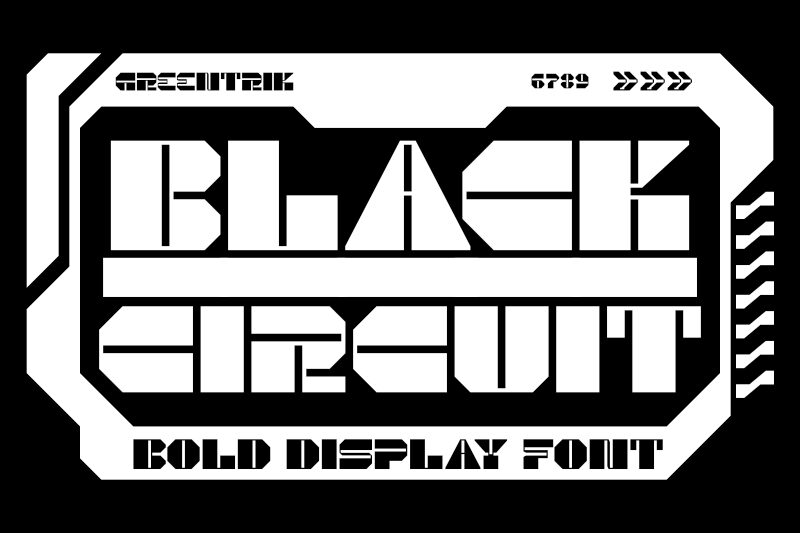
Black Circuit Demo
Behold the captivating allure of Black Circuit, a bold and expressive display font crafted by the ingenious Greentrik6789. This dynamic typeface exudes a distinct techno-inspired aesthetic, with its sharp angles and striking forms evoking a sense of futuristic elegance. The expansive letterforms and robust weight lend this font an undeniable presence, making it an ideal choice for eye-catching headlines, impactful logos, and cutting-edge digital designs.
Versatile and adaptable, Black Circuit's impactful style seamlessly translates across a diverse range of applications. From sleek modern branding to dynamic event posters, this font possesses the power to elevate any project with its bold, technological flair. Its expanded width and bold weight ensure maximum visibility, making it a compelling option for attention-grabbing display pieces, digital interfaces, and beyond.
This font is inspired by electronic circuit board which have stripes of various thicknesses. With very high contrast, this font is perfect for posters, banners, movie tittles, book tittles, advertising, and various other needs. The Black Circuit font also comes with an outline style that you can use to add a futuristic feel to your designs. Create your unique design with various alternative characters available in the Black Circuit font.